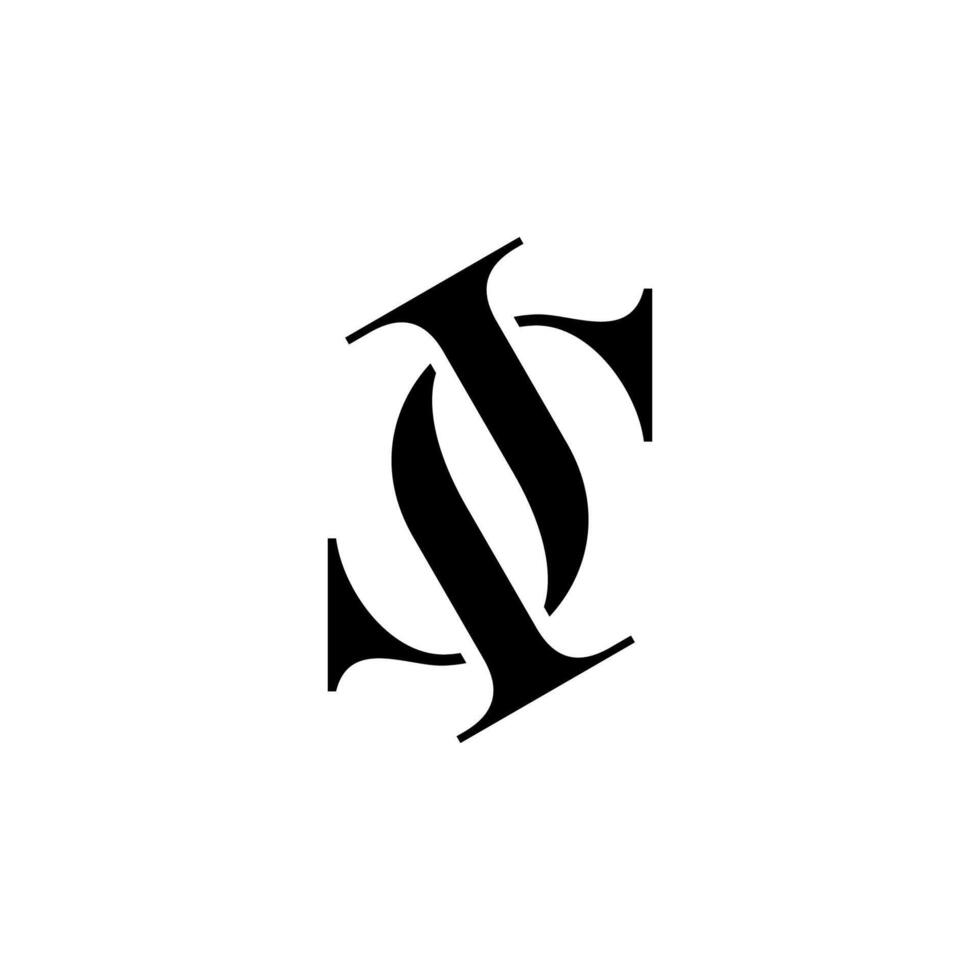
A luxurious, professional monogram of SJ or JS using elegant, tilted serif typefaces. This modern design conveys refined style, personalized service, and futuristic sophistication. Pro Vector